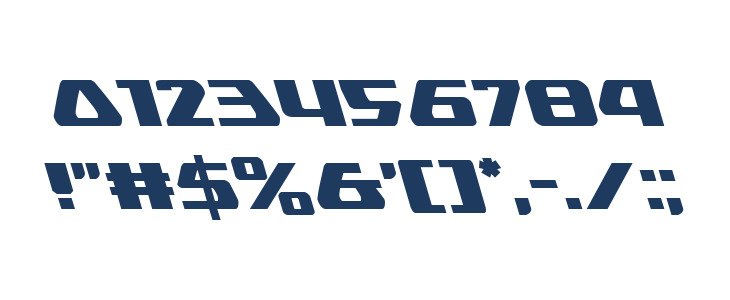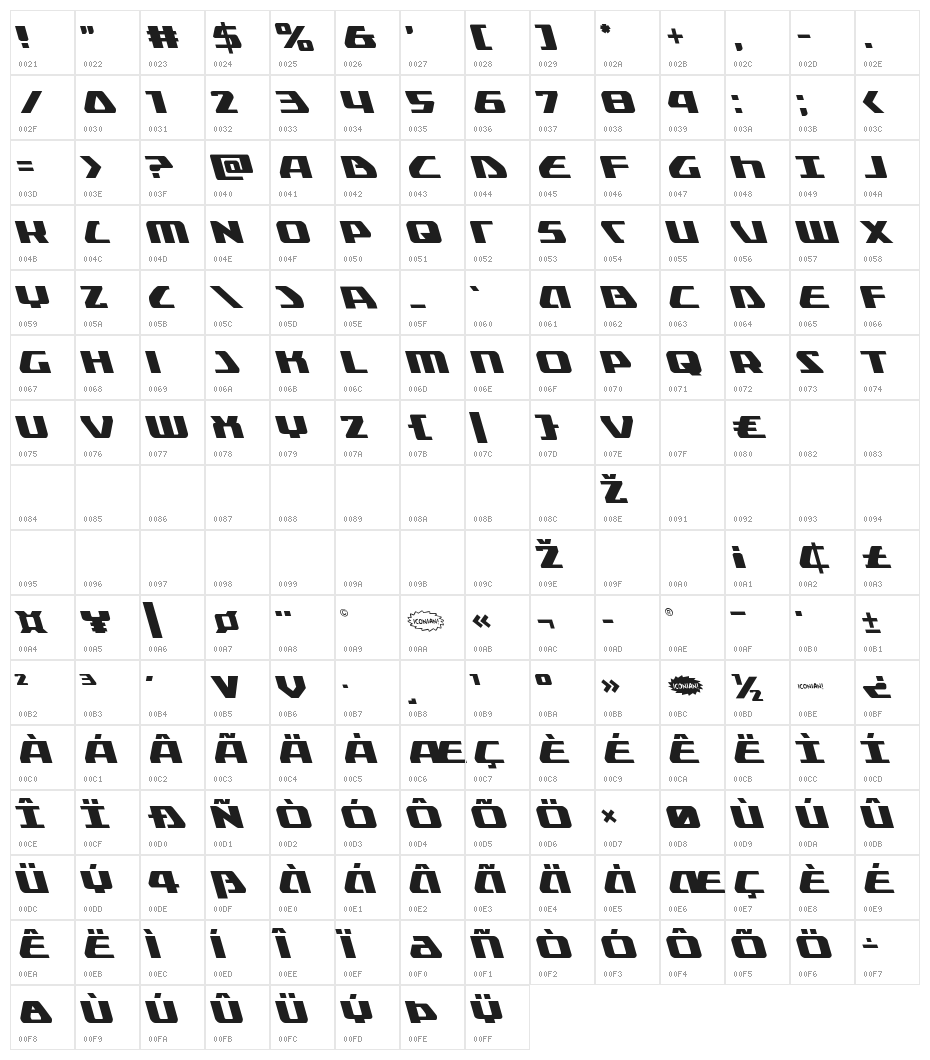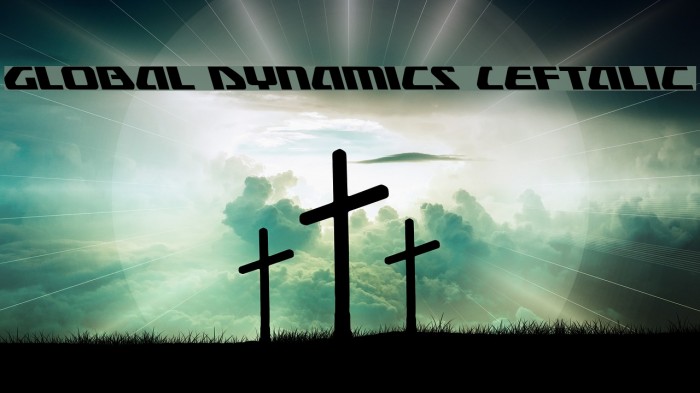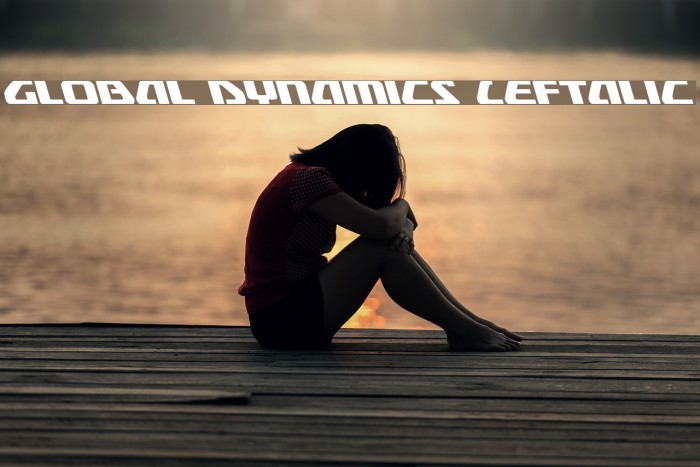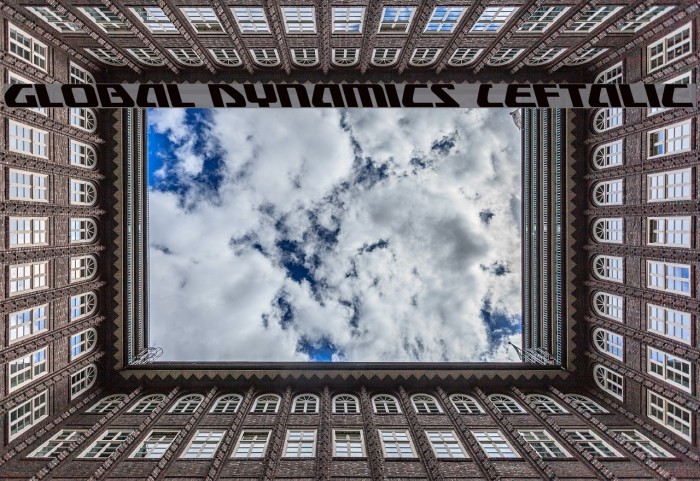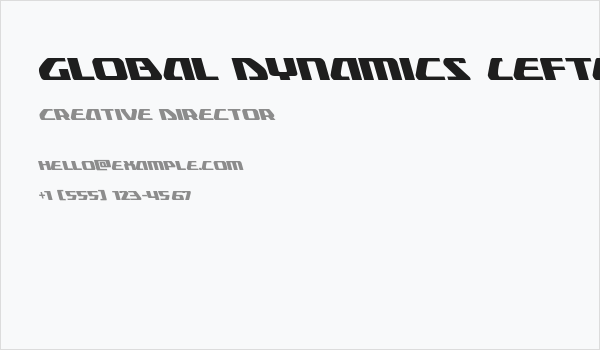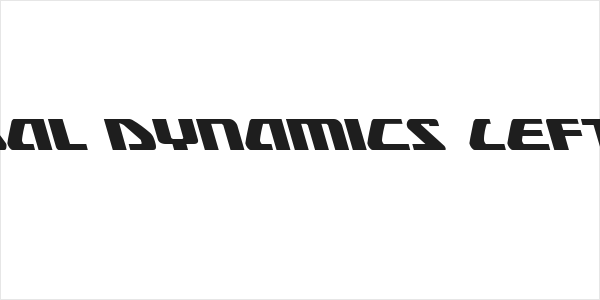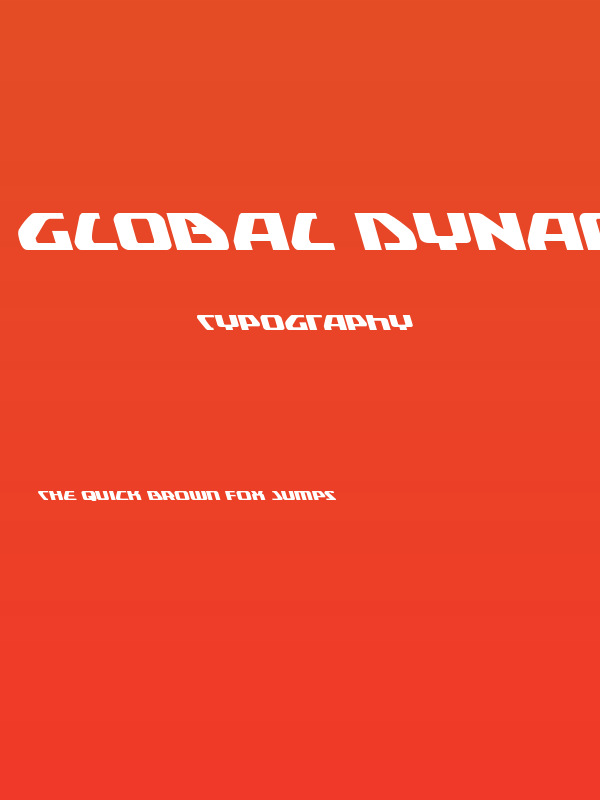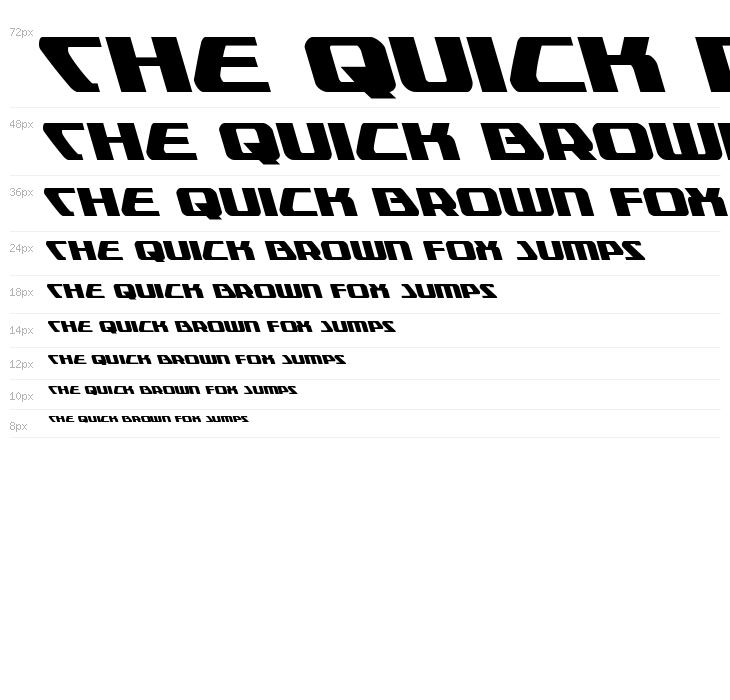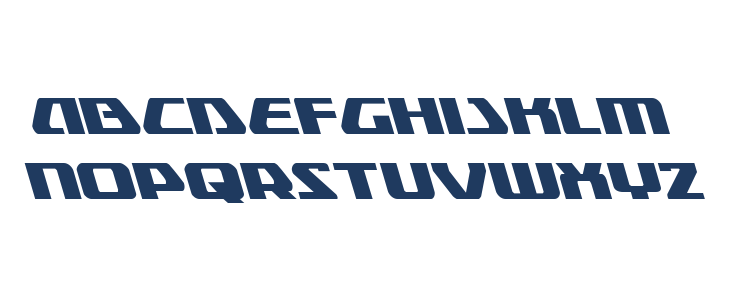
Global Dynamics Leftalic Font
Global Dynamics Leftalic Description
This font features a bold, futuristic design with angular and geometric shapes. The characters are slanted, giving a dynamic and forward-moving appearance. The uppercase letters are particularly striking, with sharp edges and a sense of motion. The lowercase letters maintain the same angular style, ensuring consistency throughout. Numbers and special characters are designed to match the bold, modern aesthetic, making this font ideal for projects that require a strong visual impact.